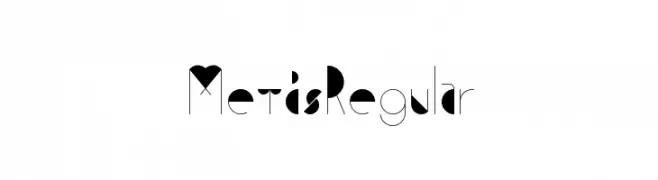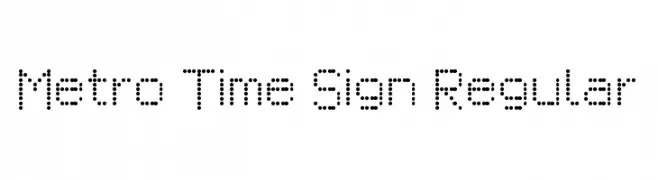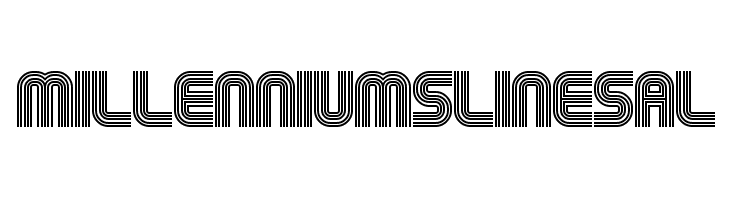
( Zac Neulieb - www.zacneulieb.com )
A modern, geometric font with high contrast and playful design.
( Fonts by Letterhend Studio )
A bold, playful font with geometric shapes and dynamic character tilt.
An elegant and decorative script font with intricate swirls and loops.
( Cort9 - Jefferson Cortinove - www.cort9.com )
A sleek, modern font with thin, geometric lines and a minimalistic design.
( Malre - David Masson Alalire - www.facebook.com/Community-Search-146103155534356/ )
A whimsical, hand-drawn font with playful and artistic character designs.
( Fonts by weknow - Wino S Kadir )
A futuristic and sleek font with elongated, curved letterforms.
( Fonts by Chequered Ink )
A dot matrix style font with a digital, retro feel.
( Denis Serikov - www.otlab.ru )
A bold, icon-based typeface ideal for transportation and navigation signage.
( Denis Serikov - www.otlab.ru )
A set of transportation and navigation icons enclosed in rounded squares.